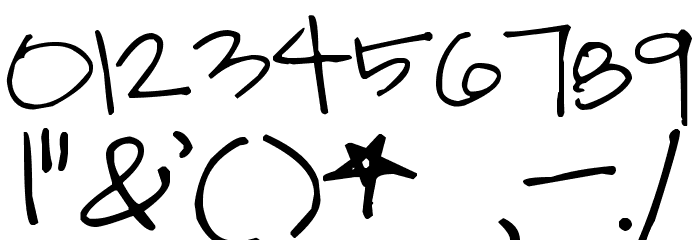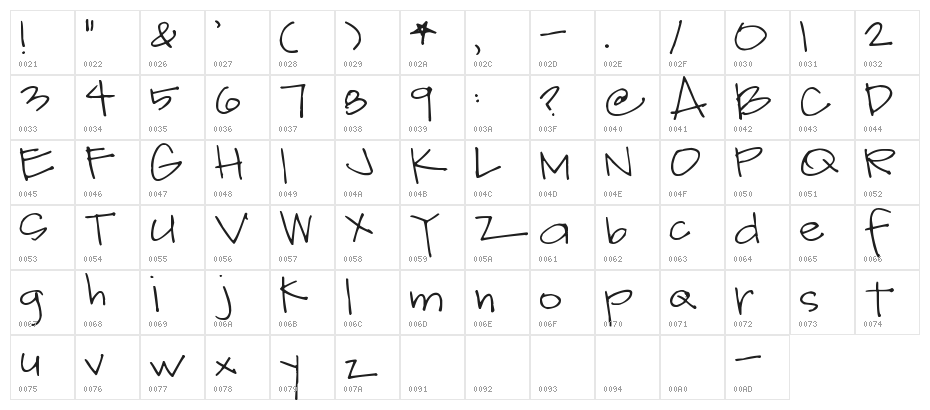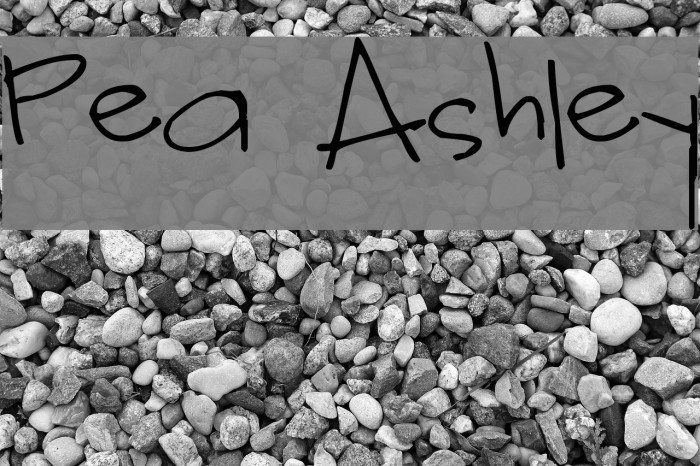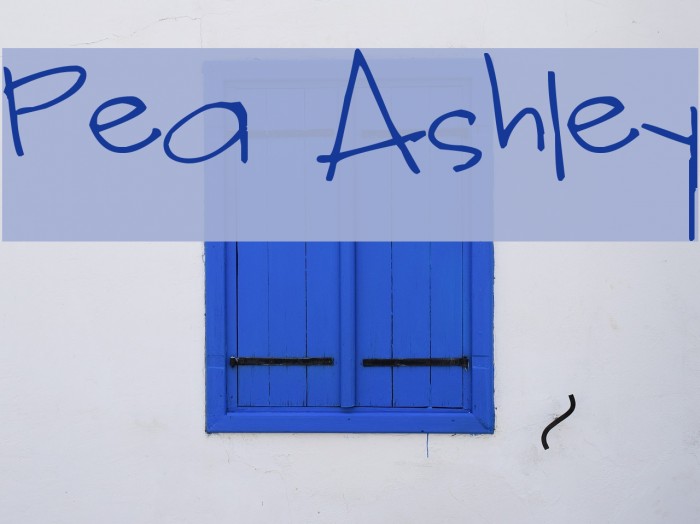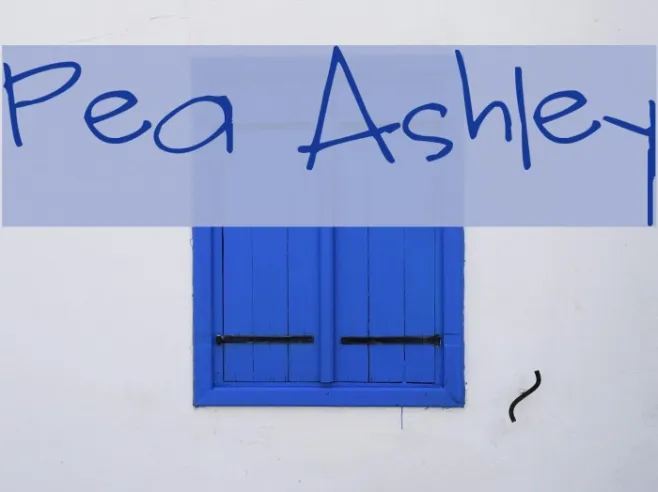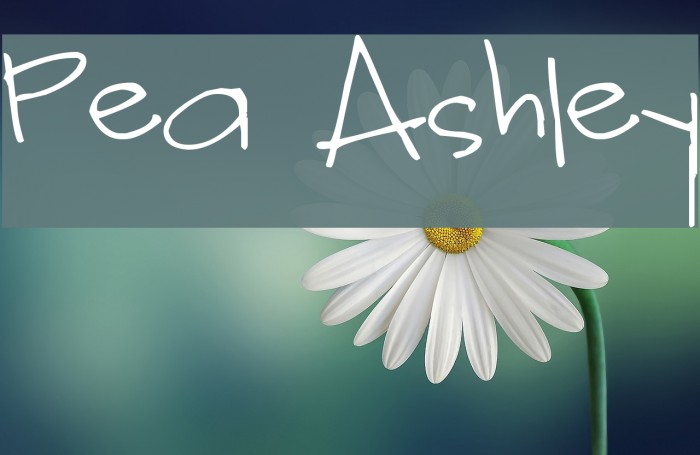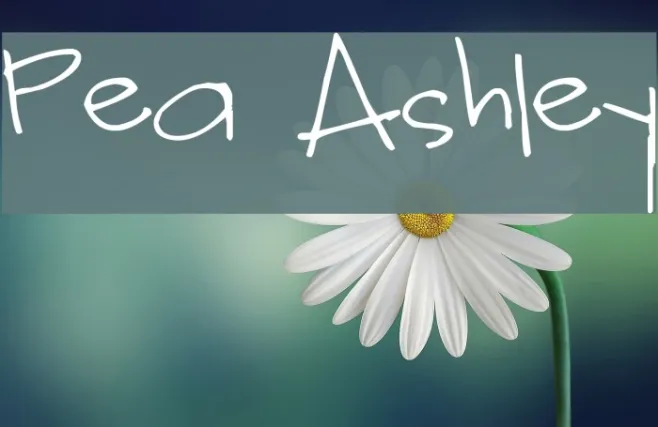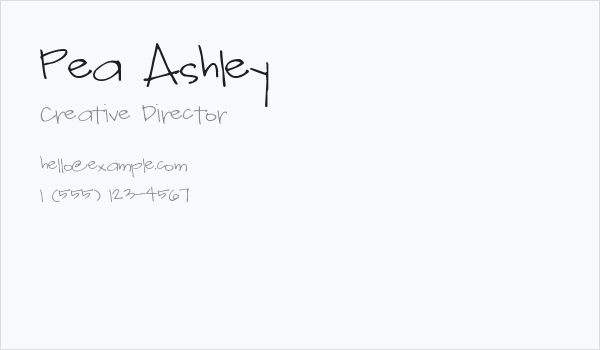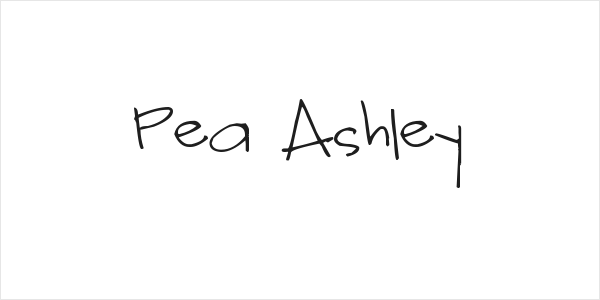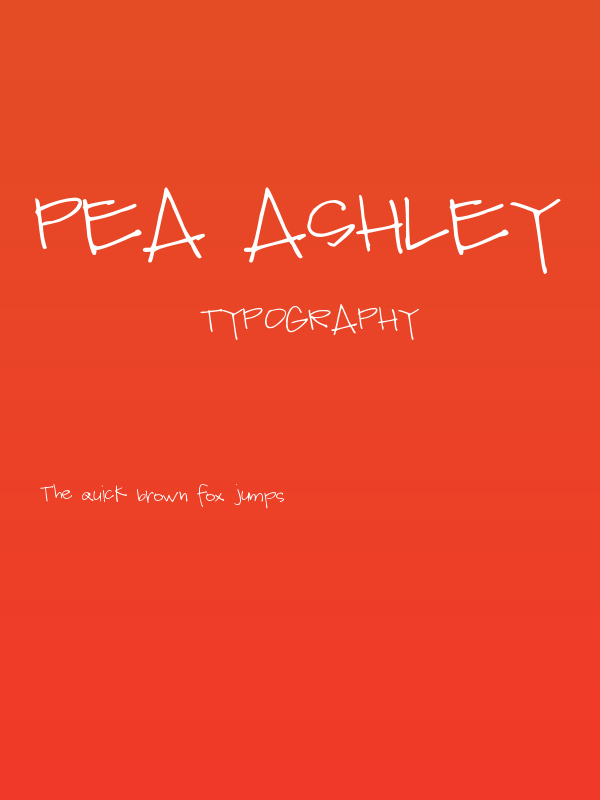
Pea Ashley Font
Pea Ashley Description
This font exudes a playful and casual handwritten style, characterized by its uneven strokes and informal appearance. The letters have a spontaneous and lively feel, with varying heights and angles that mimic natural handwriting. The uppercase and lowercase letters maintain a consistent flow, while the numbers and special characters add to the font's quirky charm. Its organic and personal touch makes it ideal for projects that require a friendly and approachable aesthetic.
| Proposed Projects | Ideal for personal notes, greeting cards, children's books, and creative branding projects. |